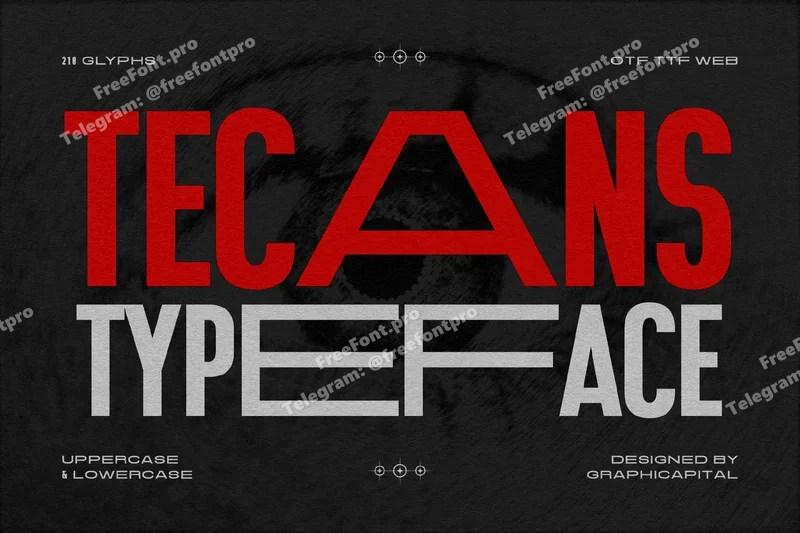
Tecans
Tecans is a condensed sans-serif font with a stretched effect that delivers a modern, energetic, and bold impression. Its unique proportions create the illusion of expanded space, making it ideal for posters, headlines, branding, and designs needing a strong presence in limited layouts.
Ideal for branding, posters, headlines, packaging, album art, game visuals, and promotional designs. It adds personality to any creative project and helps your message stand out effortlessly.